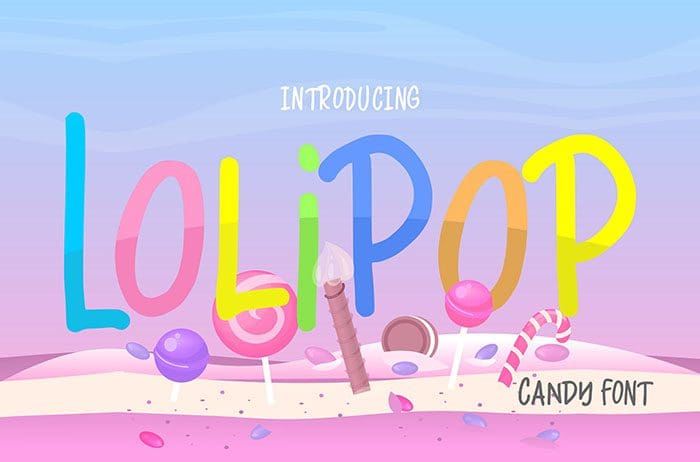
Lolipop Candy Funny Font
Lolipop candy funny script font featuring simple style. It is perfect for a birthday invitation, kids party, poster, apparel design, and many more. Thanks to Vunira Studio for sharing this font. Take a look at this portfolio for more of his stunning fonts.